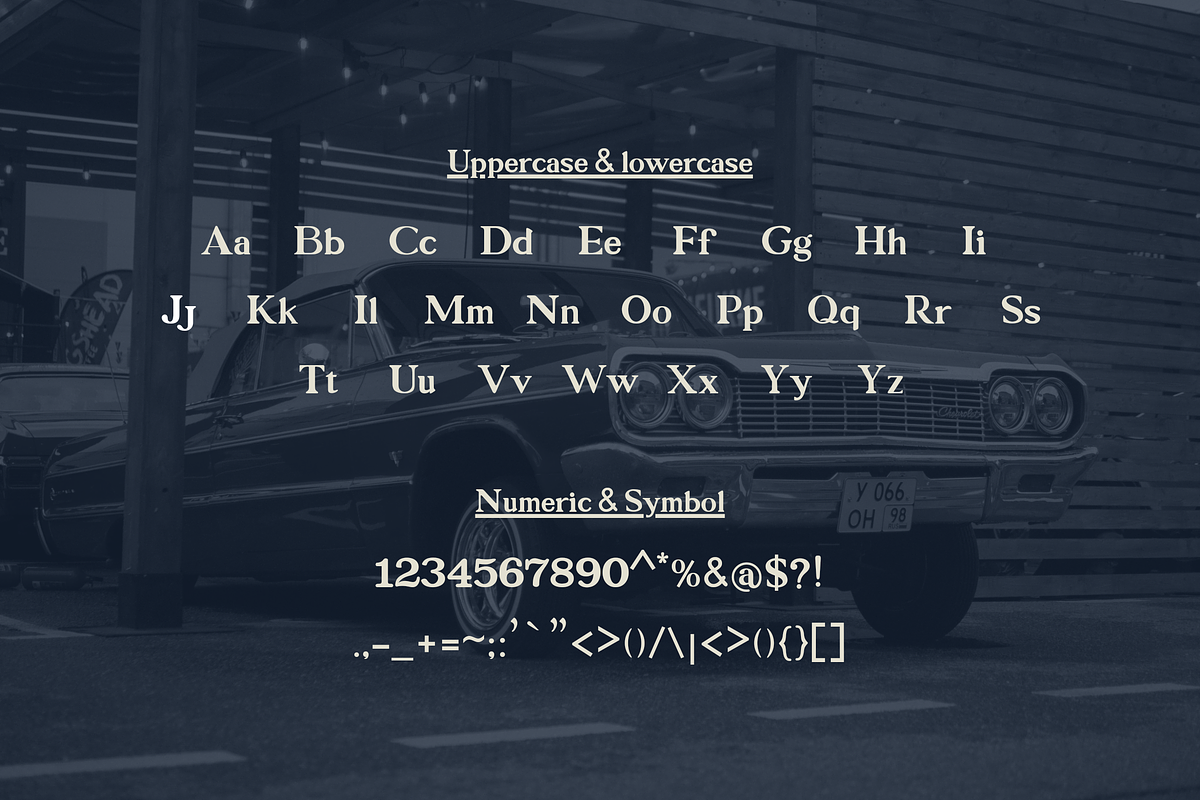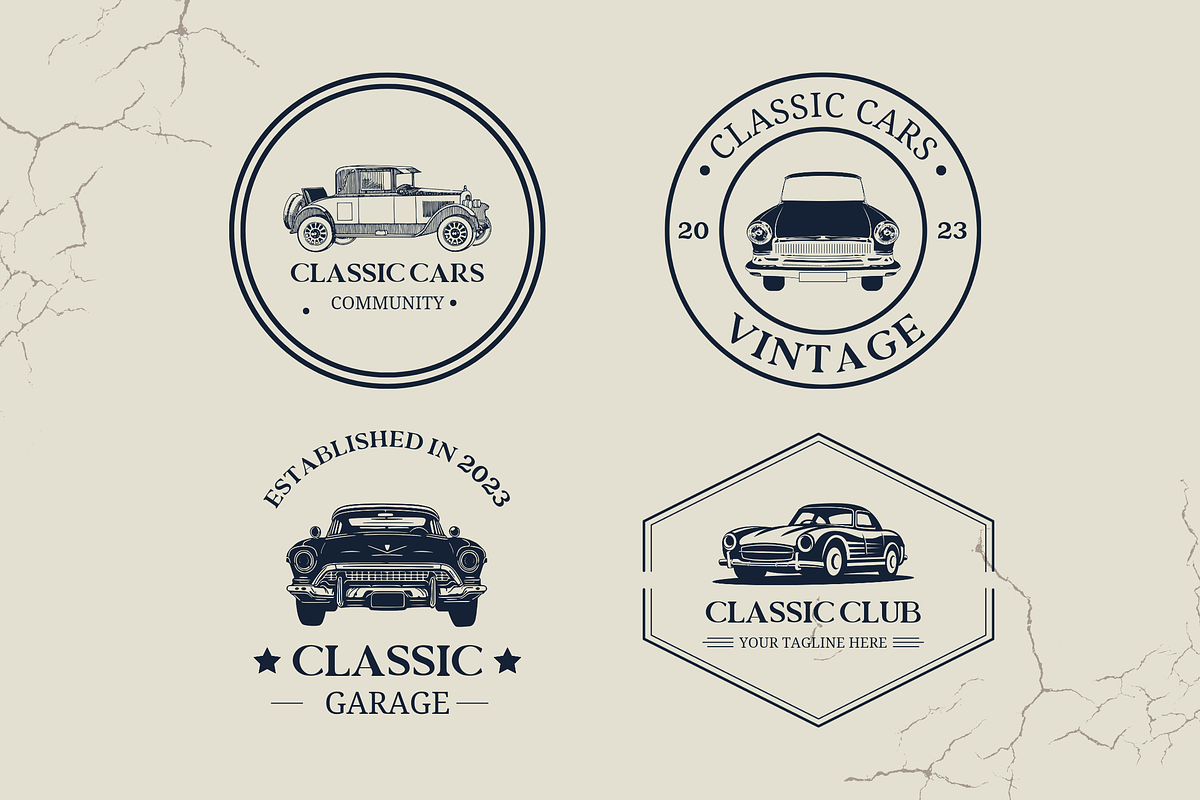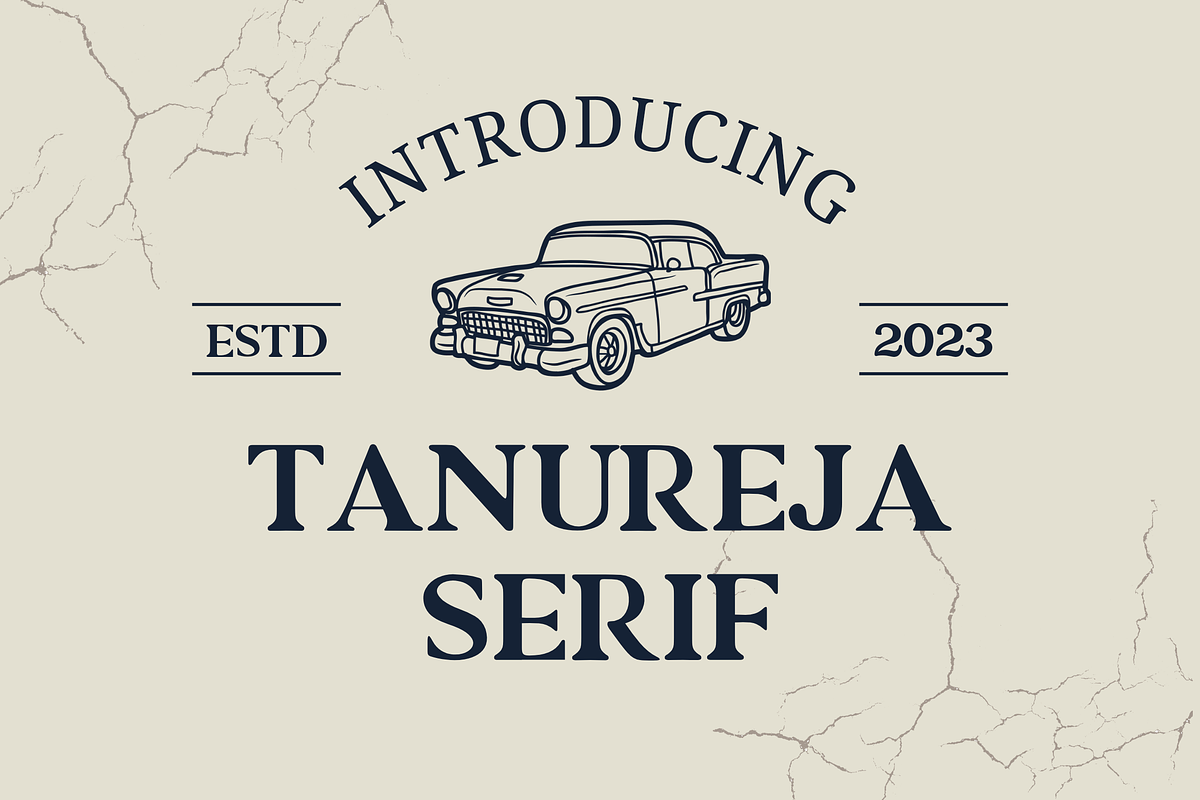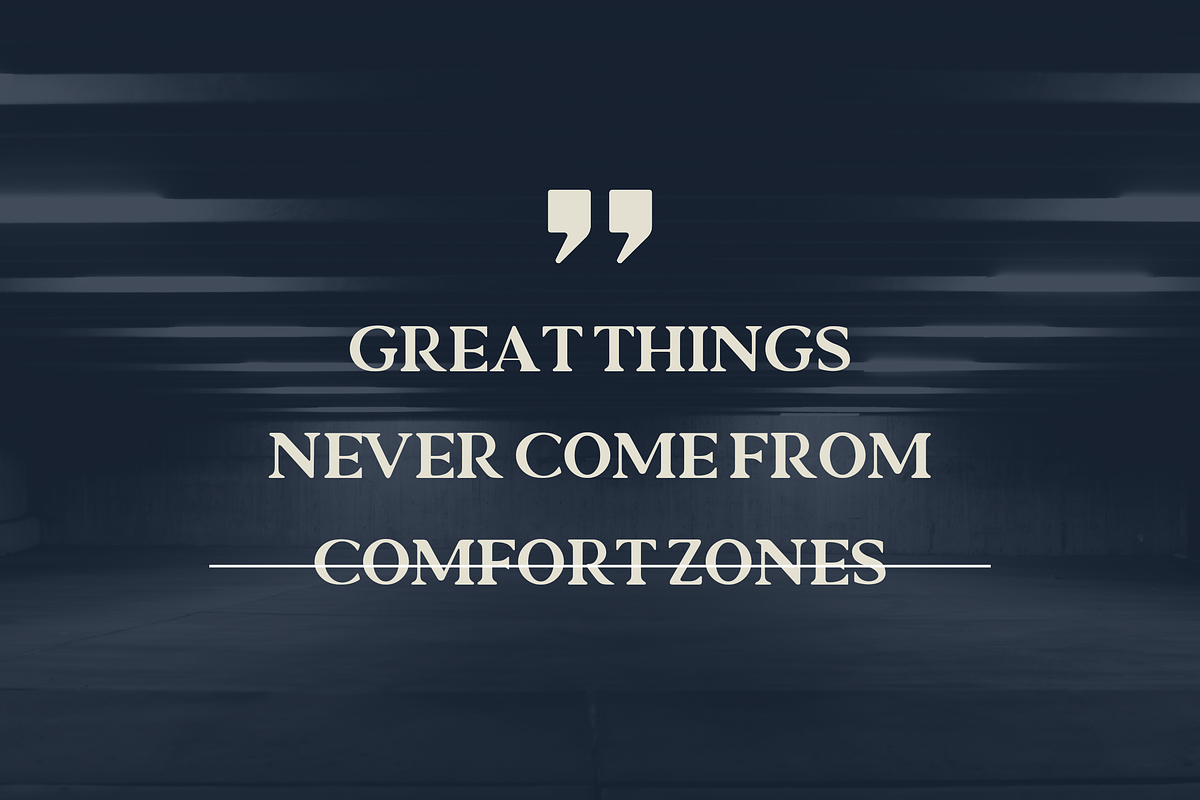
Tanurejat | Modern Serif Font
Tanurejat font is characterized by a serif font with modern letter design. The serif font style also adds a simple and attractive feel that is approachable, making it a friendly and attractive choice for any project.
- Uppercase Characters
- Lowercase Characters